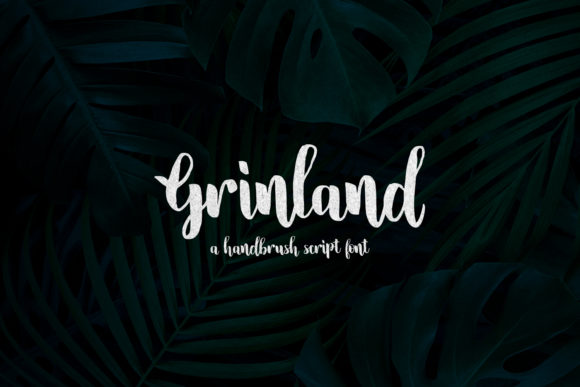
Embrace the allure of typography with Grinland Font, a captivating script that evokes the essence of modern calligraphy. Immerse yourself in the world of ink and brushstrokes, where every letter dances with a captivating allure.
Dikas Studio, the masterminds behind this exquisite creation, have poured their passion into crafting a font that resonates with the untamed spirit of nature. Grinland Font is an ode to the great outdoors, where rugged beauty and delicate finesse intertwine.
Picture yourself crafting invitations that whisper the secrets of a woodland retreat. Design posters that ignite the wanderlust in every soul. Unleash your creativity with logos that embody the untamed wilderness. Grinland Font is your gateway to a world of boundless possibilities.
Its meticulously crafted glyphs possess a timeless charm that transcends trends. Each stroke whispers tales of ancient forests and distant horizons, inviting you to embark on a typographic adventure. Whether you're a seasoned designer or a budding enthusiast, Grinland Font is the key to unlocking your lettering dreams.
Its versatility extends far beyond the realms of nature. From elegant wedding stationery to enigmatic branding, Grinland Font adapts seamlessly to diverse aesthetics. Experience the joy of crafting designs that captivate, inspire, and leave an unforgettable mark.
But don't just take our word for it. Journey into the realm of Grinland Font today and witness its transformative power firsthand. Let your imagination soar as you explore a world where words dance with an untamed spirit and creativity knows no bounds.